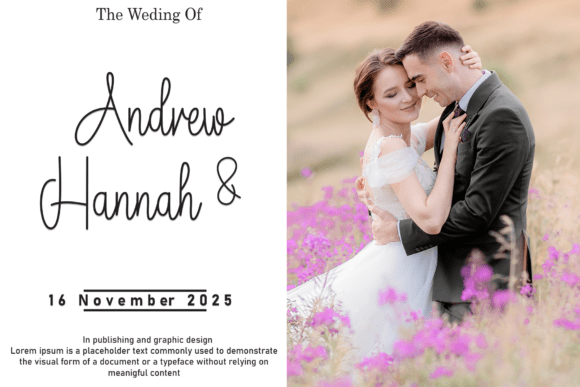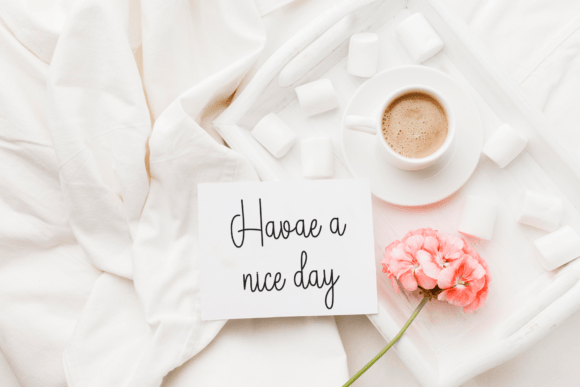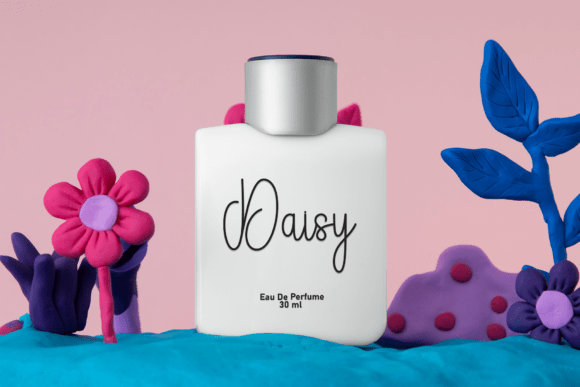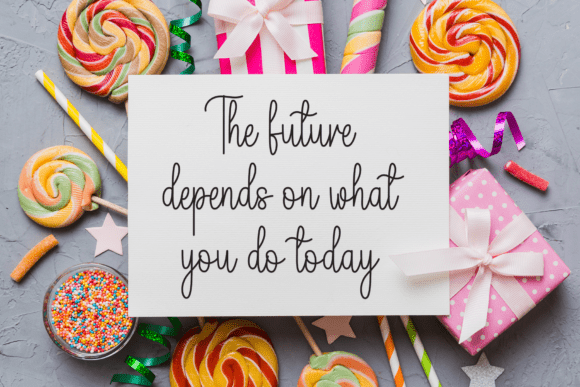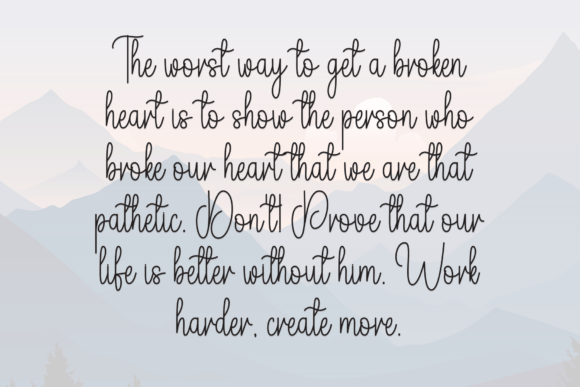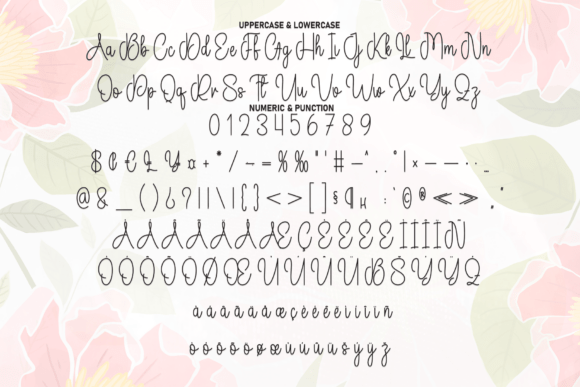
Have you ever sat down with a blank sheet of paper, a pen in hand, and felt the urge to create something beautiful and unique? That’s exactly what inspired the design of Angela Font – a stylish handwritten script font that radiates fresh elegance and delicate charm. This lovely typeface is perfect for adding a personal touch to your next project, whether it’s a wedding invitation, a branding campaign, or a seasonal design.
Angela Font is more than just a pretty face – it’s a valuable tool for designers looking to add a soft, uplifting feel to their work. With its flowing strokes and graceful curves, this typeface is sure to evoke a sense of renewal and freshness in any project. Whether you’re a seasoned pro or a budding designer, Angela Font is a must-have in your creative arsenal.
Key Features of Angela Font
- Unique Characteristics: Angela Font features a unique blend of modern and vintage elements, with a focus on elegant lines and subtle flourishes.
- Stylistic Sets: Angela Font includes multiple stylistic sets, allowing users to create a wide range of styles and variations within the font.
Angela Font Review
Angela Font, designed by Alejandro Paul, is a beautiful script font that exudes elegance and sophistication. Here’s what I think:
- ✨ Elegant and refined lines make it perfect for formal invitations, certificates, or any high-end branding
- ✨ The font’s cursive feel adds a touch of warmth and personality to any design
- ✨ The font is highly legible, even at smaller sizes, making it suitable for body text and longer blocks of text
- ⚠️ The font may not be the best choice for digital screens due to its high stroke count and potential for aliasing
- ⚠️ The font’s cursive nature can make it challenging to read for those with visual impairments or dyslexia
Overall, Angela Font is a stunning addition to any designer’s toolkit. Its beauty and elegance make it perfect for high-end projects, but its limitations should be considered when choosing the right font for the job.
Angela Font is a beautiful, elegant script font that is perfect for:
Wedding invitations, menus, and other formal events.
Branding and marketing materials, such as business cards and brochures.
Personal projects, such as journals and scrapbooks.
Remember to use Angela Font sparingly and thoughtfully to create a professional and polished look.